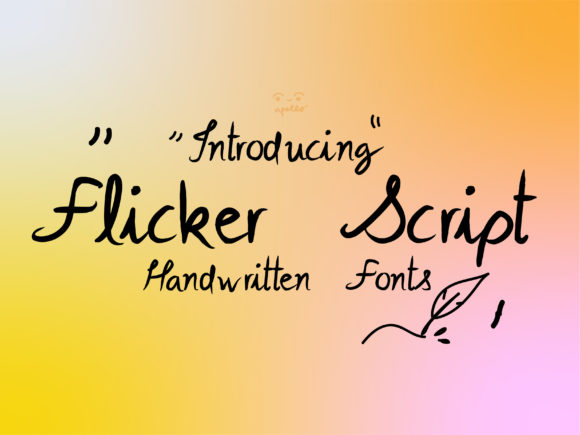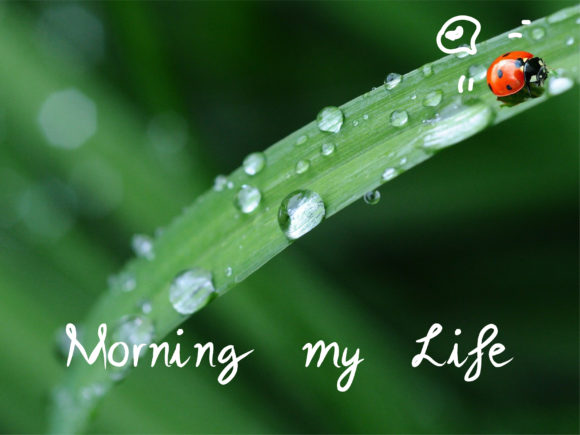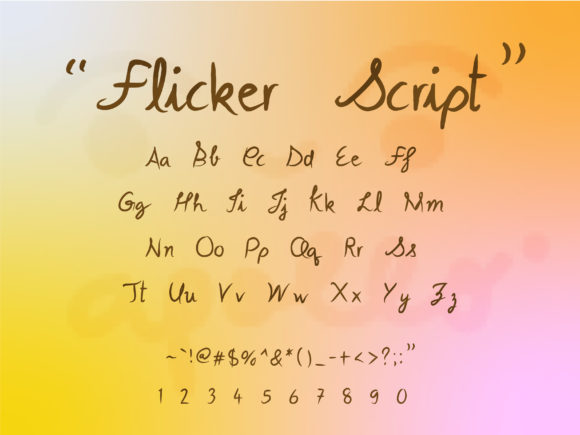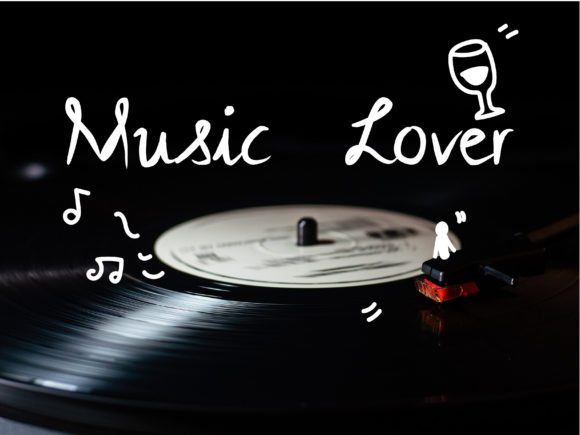
Flicker Script Font
About Flicker Script Font
Flicker Script is a beautiful and delicate script font. It was particularly crafted for those who need a beautiful and refreshing look to their designs.